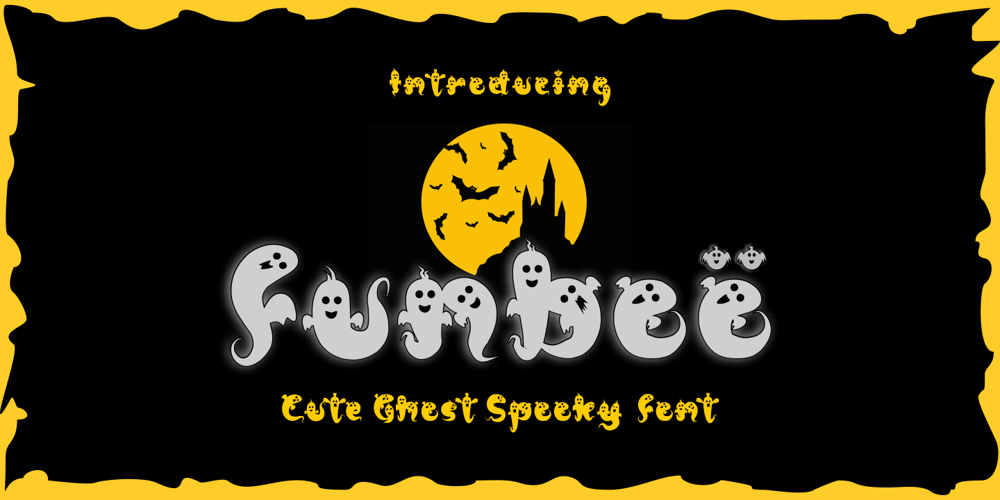
Funboo
Funboo font
Funboo Font Family was designed by Ahmad Zulfikar Ali and published by ZetDesign. Funboo contains 1 styles and family package options. Funboo is a horror-themed font, the shape of the letter resembles a ghost image but still funny. This font is suitable for Halloween decoration and design with a horror theme and can be applied to various media according to your wishes. stay cute and boo!!! ….. Thanks ….